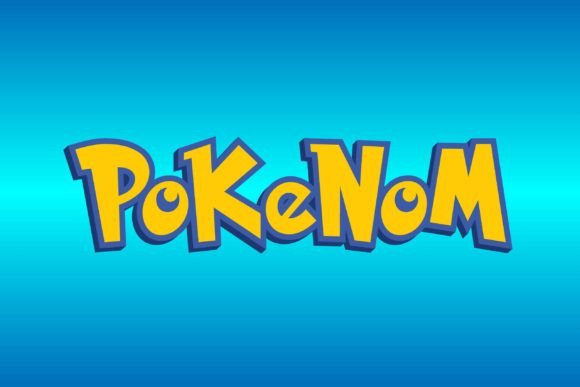
Pokenom Font
Pokenom: A Gothic-crafted Stylish Decorative Pokemon Font, brimming with Cartoon Quality. Ideal for Movie titles, Cartoon and Game names, and T-shirt designs, Pokenom unleashes creativity. Featuring 96 meticulously designed glyphs and 95 characters, it transforms ordinary expressions into captivating visual stories, making it the ultimate choice for dynamic and engaging typography across diverse design projects.